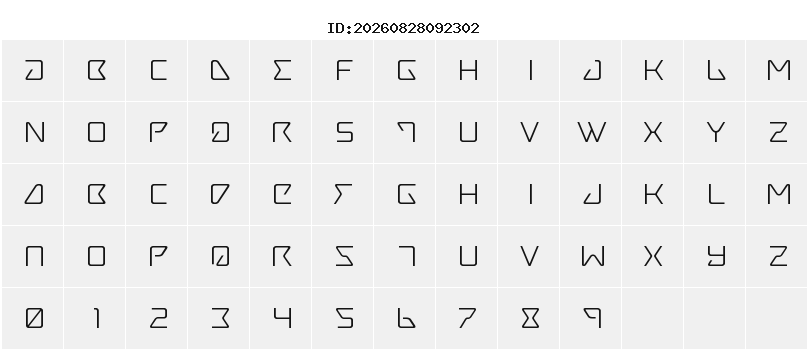
Tracer Expanded Preview
• Font Name: Tracer Expanded
• Font Style: Expanded
• Full Font Name: Tracer Expanded
About Tracer Expanded.ttf
Tracer Expanded.ttf is a modern, elegant sans-serif font designed for ultimate readability and visual harmony. Perfect for branding, headlines, web design, and print materials.